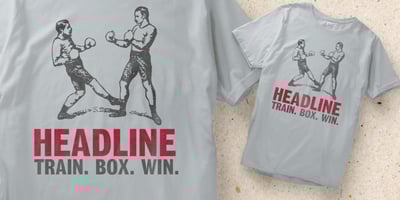
Headline
Headline font
Headline Font Family was designed by Monotype Design Studio and published by Monotype. Headline contains 1 styles and family package options. Headline Bold is a sans serif face in the nineteenth century English Grotesque tradition. The Headline Bold font is based on types from the Stephenson Blake type foundry called Grotesque no. 9. A bold and compact font, its name gives a strong indication of its primary use.